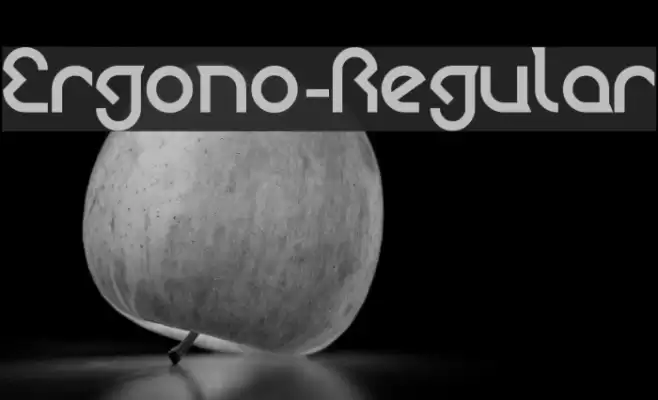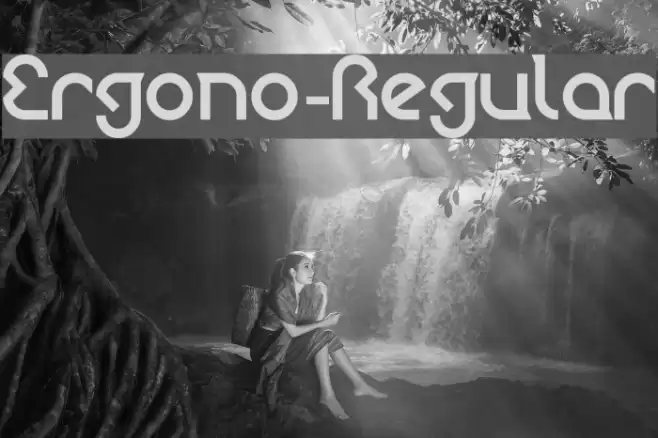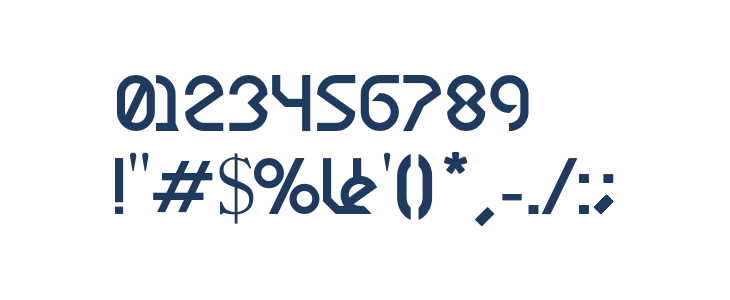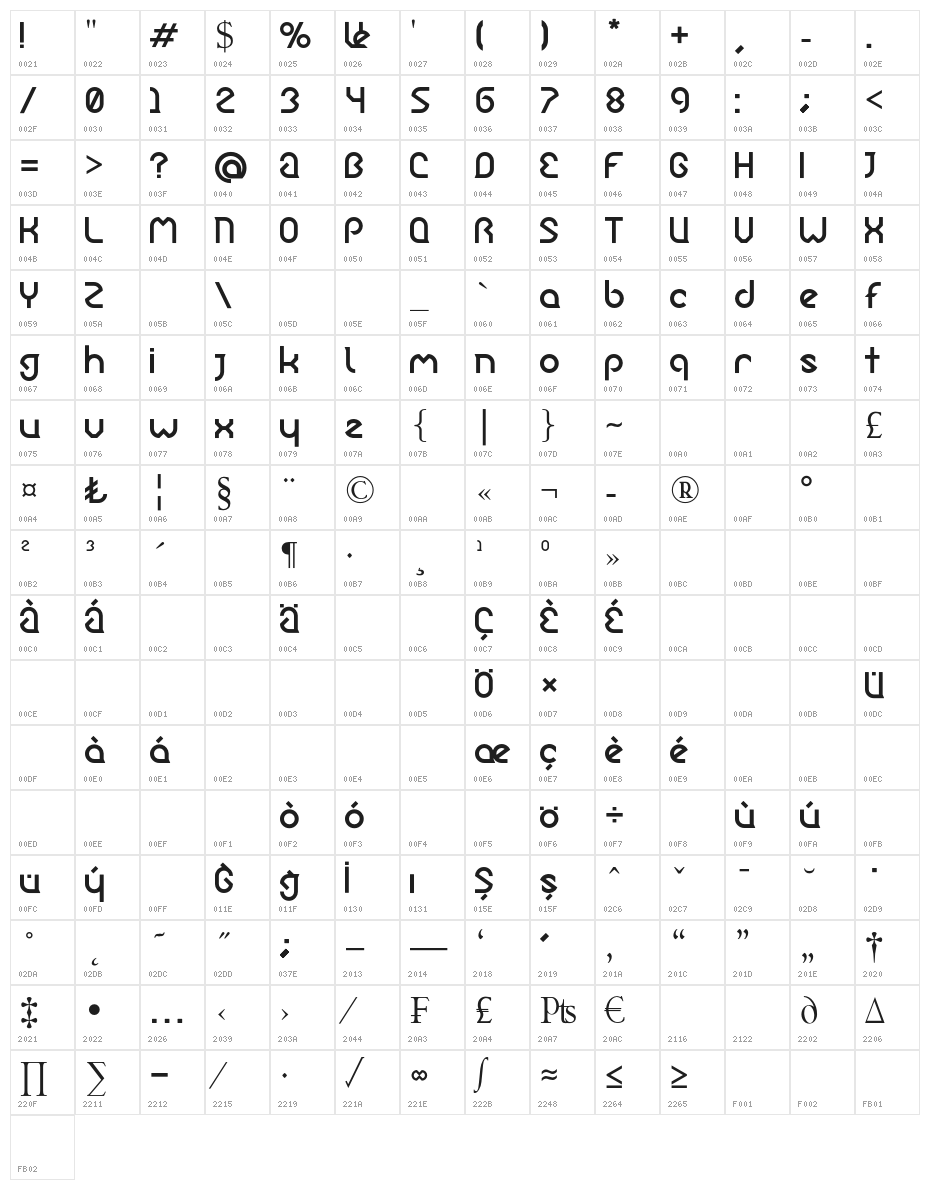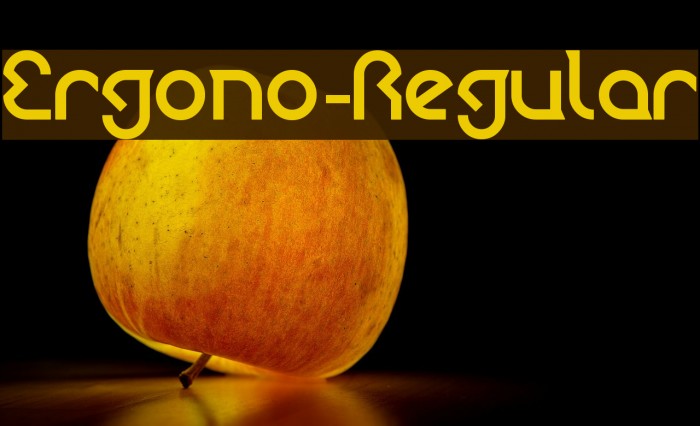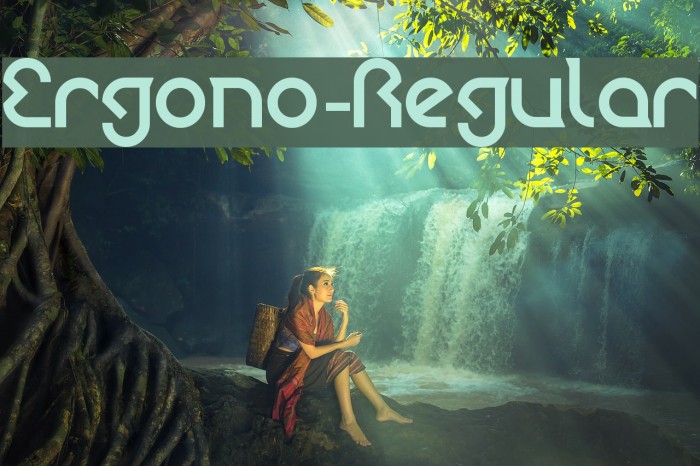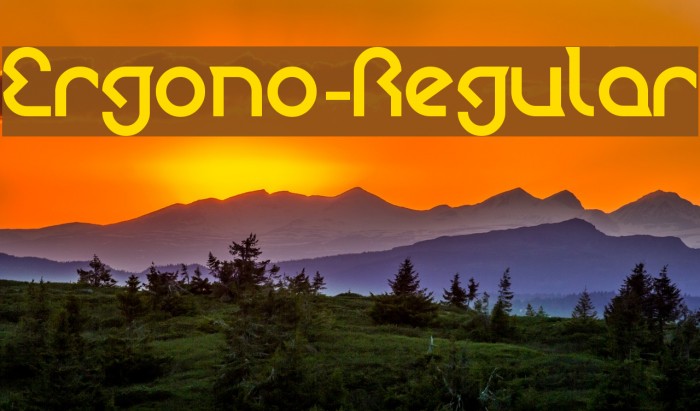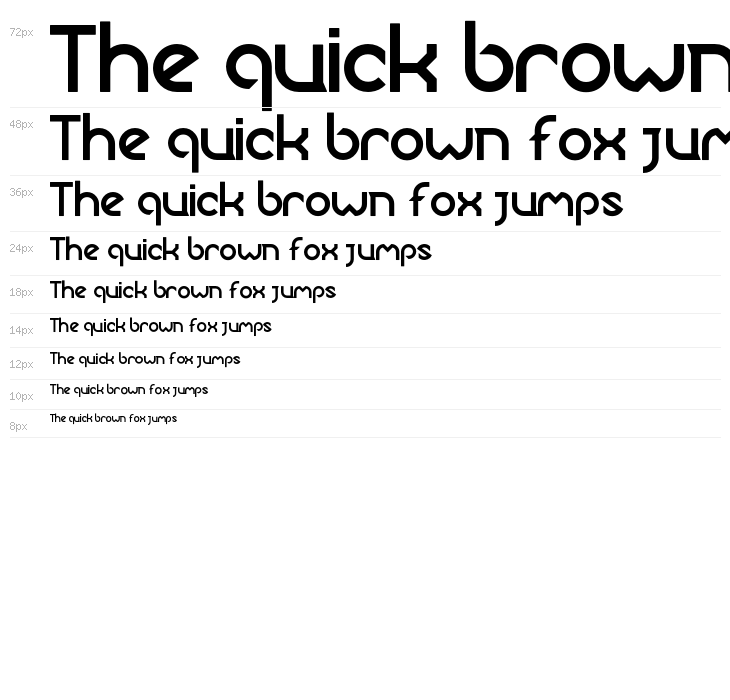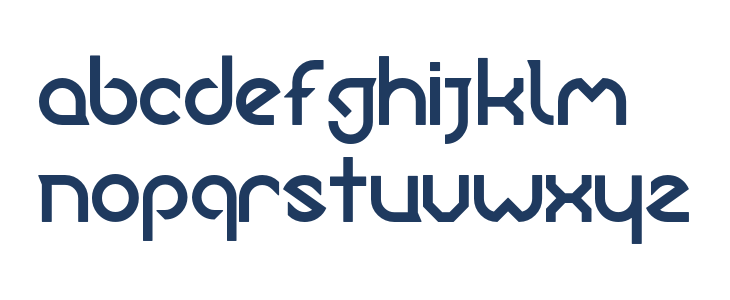
Ergono-Regular Font
Ergono-Regular Description
This font features a modern and geometric design with a unique blend of rounded and angular elements. The uppercase and lowercase letters maintain a consistent style, characterized by their bold and structured appearance. The numbers and special characters follow the same design principles, ensuring uniformity across all glyphs. The font's distinctiveness lies in its futuristic and tech-inspired aesthetic, making it stand out in various applications. Its clean lines and balanced proportions contribute to its readability, while the innovative shapes add a creative flair.
A modern, geometric font with a futuristic and tech-inspired design from Uncategorized fonts.
- Proposed Projects: Ideal for technology branding, digital interfaces, modern advertising, and innovative product packaging.
- Overall Style: Futuristic
- Use Case: Logos, Headlines, Digital Interfaces